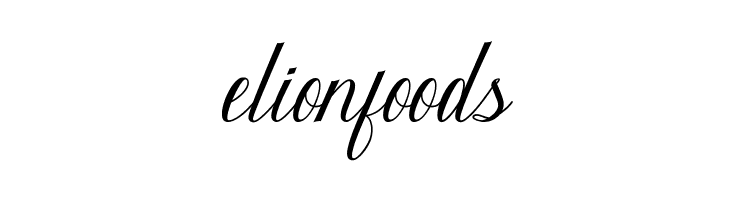
An elegant script font with intricate swashes and a calligraphic style.
An elegant, flowing script font with graceful curves and a sophisticated style.
A cursive script font with elegant, flowing strokes and interconnected letters.